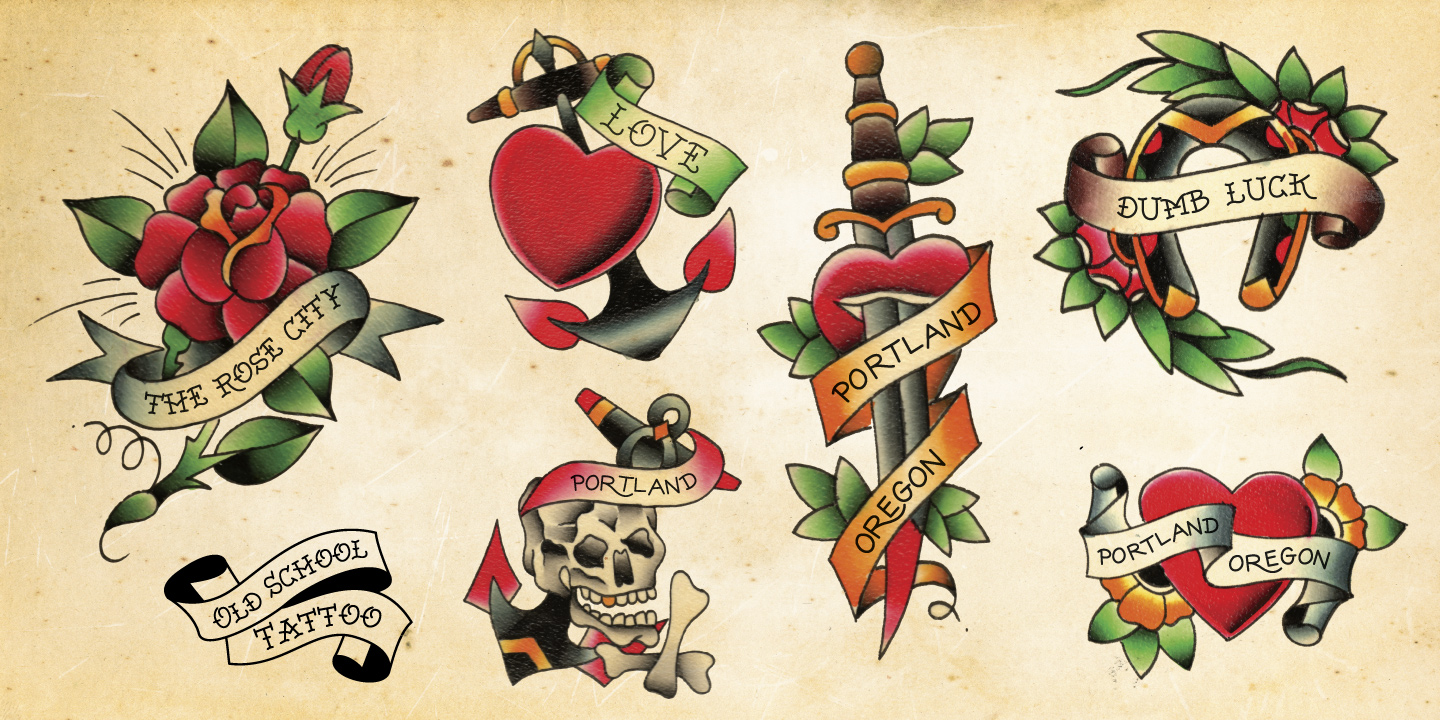
Old School Tattoo Font is authentically designed for tattoo parlor branding, vintage motorcycle graphics, rockabilly event posters, sailor-themed merchandise, pin-up art illustrations, vintage barbershop signage, retro diner logos, classic car show graphics, traditional American art projects, and bold design applications that celebrate the iconic visual culture of mid-20th century American tattoo artistry.
What makes Old School Tattoo Font so exciting is its exceptional ability to capture the bold, unapologetic spirit and timeless artistic traditions of classic American tattoo culture through letterforms that embody the confidence, craftsmanship, and rebellious authenticity that defined the golden age of traditional tattooing. This font represents the intersection of folk art and commercial lettering, featuring thick, bold character construction with distinctive proportions that mirror the hand-lettered signage and artistic traditions of vintage tattoo shops. Its authentic tattoo heritage and bold personality make it perfect for brands wanting to communicate authenticity, craftsmanship, and rebellious individuality through typography that honors American working-class artistic traditions.
The Old School Tattoo Font family typically includes regular and bold weights with character variations that enhance the hand-lettered, traditional tattoo aesthetic. Some versions offer decorative elements and stylistic alternates that increase the authentic tattoo shop personality for maximum cultural credibility.
Tattoo artists consistently choose Old School Tattoo Font Free Download for shop branding and artistic projects requiring authentic traditional tattoo credibility. Its bold character and cultural associations make it particularly valuable for tattoo parlors, vintage-inspired brands, and artistic enterprises celebrating American folk art traditions.
The font's distinctive bold construction and traditional character make it exceptionally effective for applications where communicating authenticity and artistic heritage are primary brand objectives. Old School Tattoo Font performs best in display contexts where its thick letterforms can command attention and establish immediate cultural connections.
Cultural historians appreciate the font's faithful representation of mid-century American lettering traditions and its continued relevance in contemporary vintage-inspired design movements. The font's ability to instantly communicate specific cultural periods makes it invaluable for authentic themed branding.
For vintage motorcycle enthusiasts, Old School Tattoo Font offers genuine period credibility that helps custom shops, rallies, and motorcycle culture businesses establish authentic connections to American biker heritage and working-class artistic traditions.
Rockabilly music promoters frequently adopt this font for concert posters, album artwork, and event materials where traditional tattoo aesthetics directly support musical genre expectations and audience cultural connections.
Barbershop and salon owners particularly value Old School Tattoo Font for vintage-inspired branding where traditional American craftsmanship imagery helps establish trust and communicate the personal attention and skilled artistry that customers expect from traditional service providers.